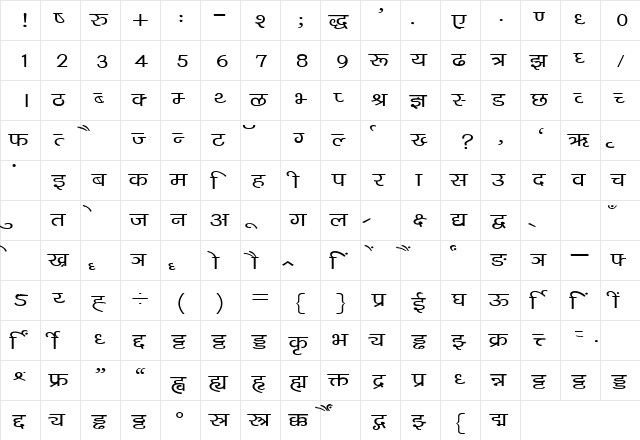
Kruti Dev 040 Wide Regular
Design Context for Kruti Dev 040 Wide Typeface
Kruti Dev 040 Wide is a composed and adaptable typeface that performs quietly and consistently across a wide range of design contexts.